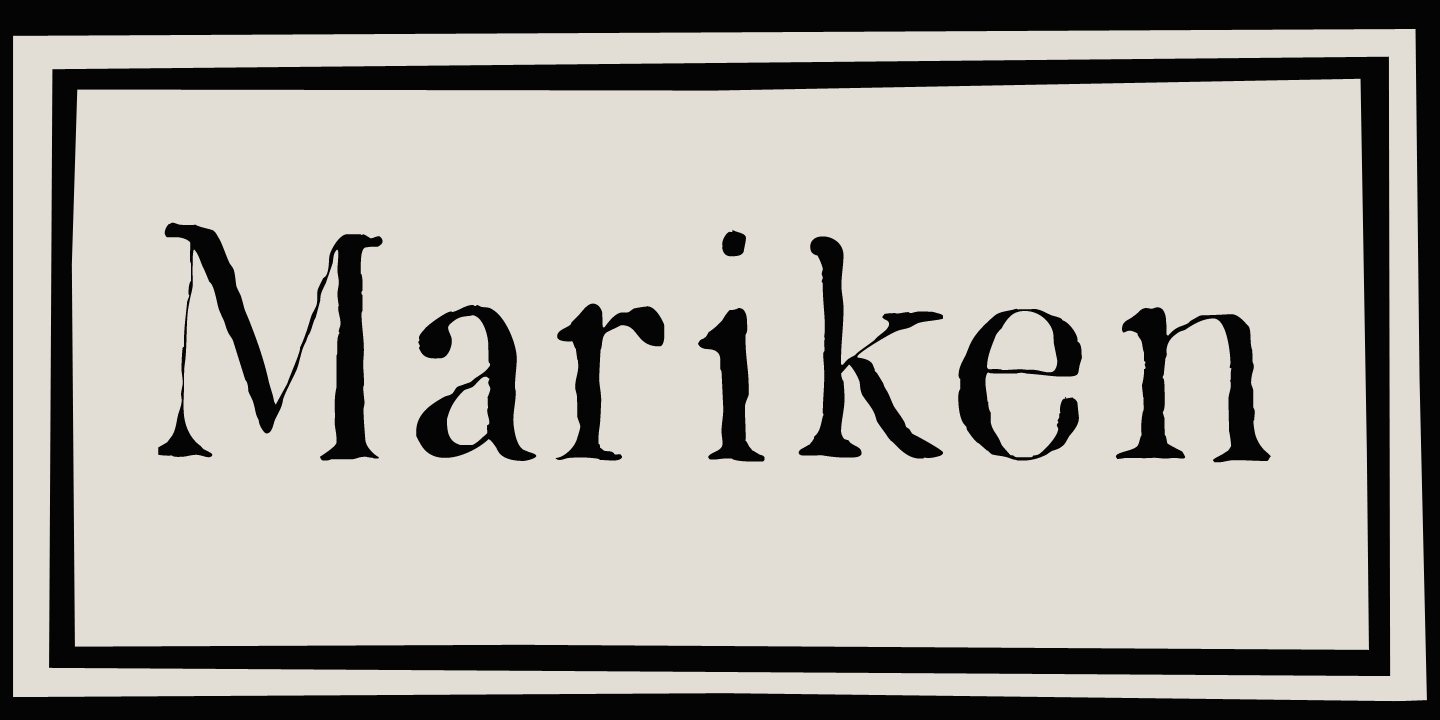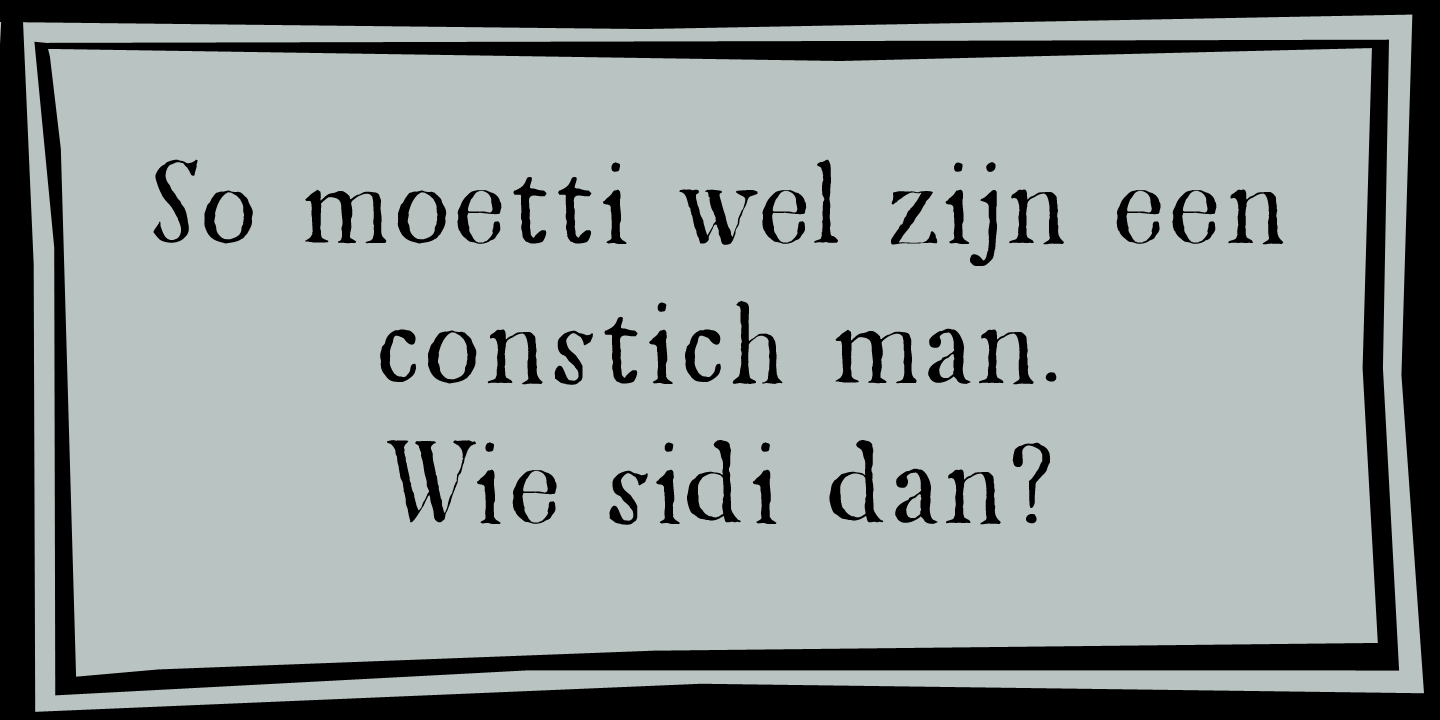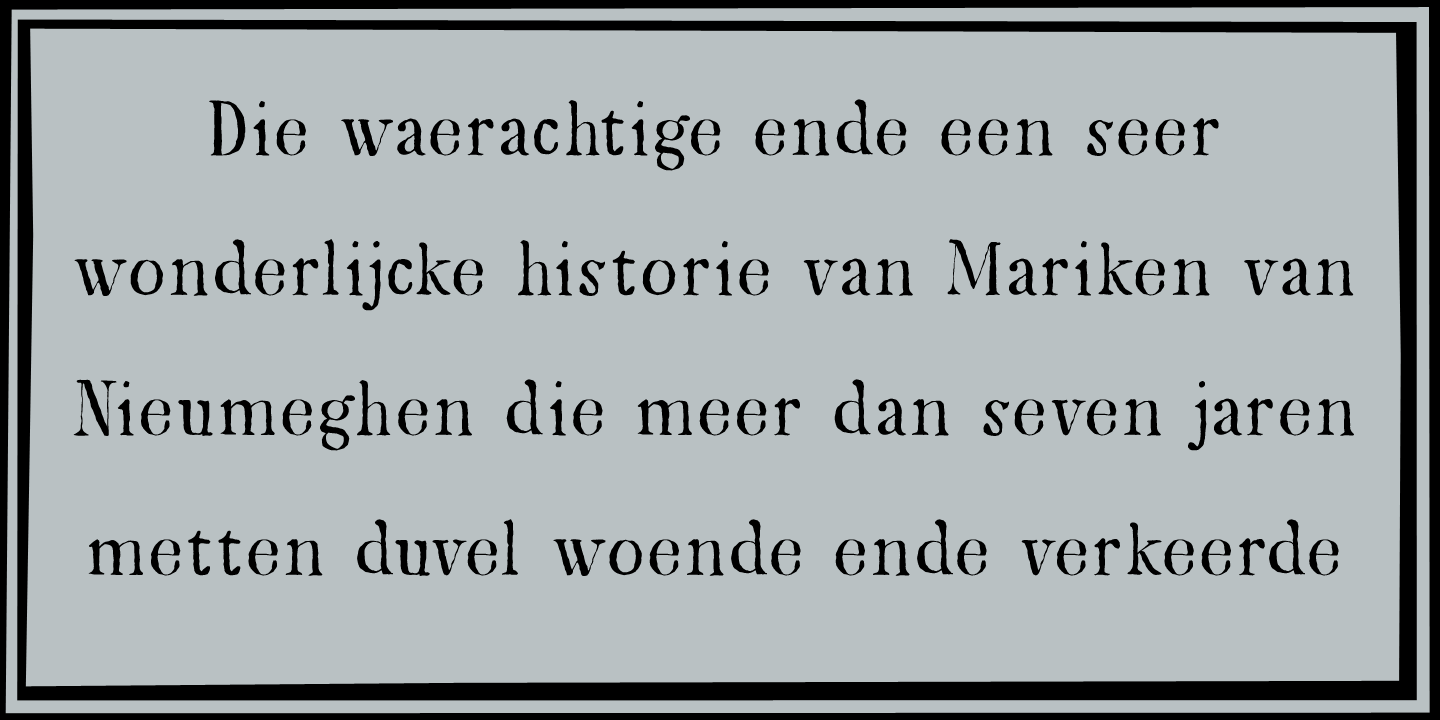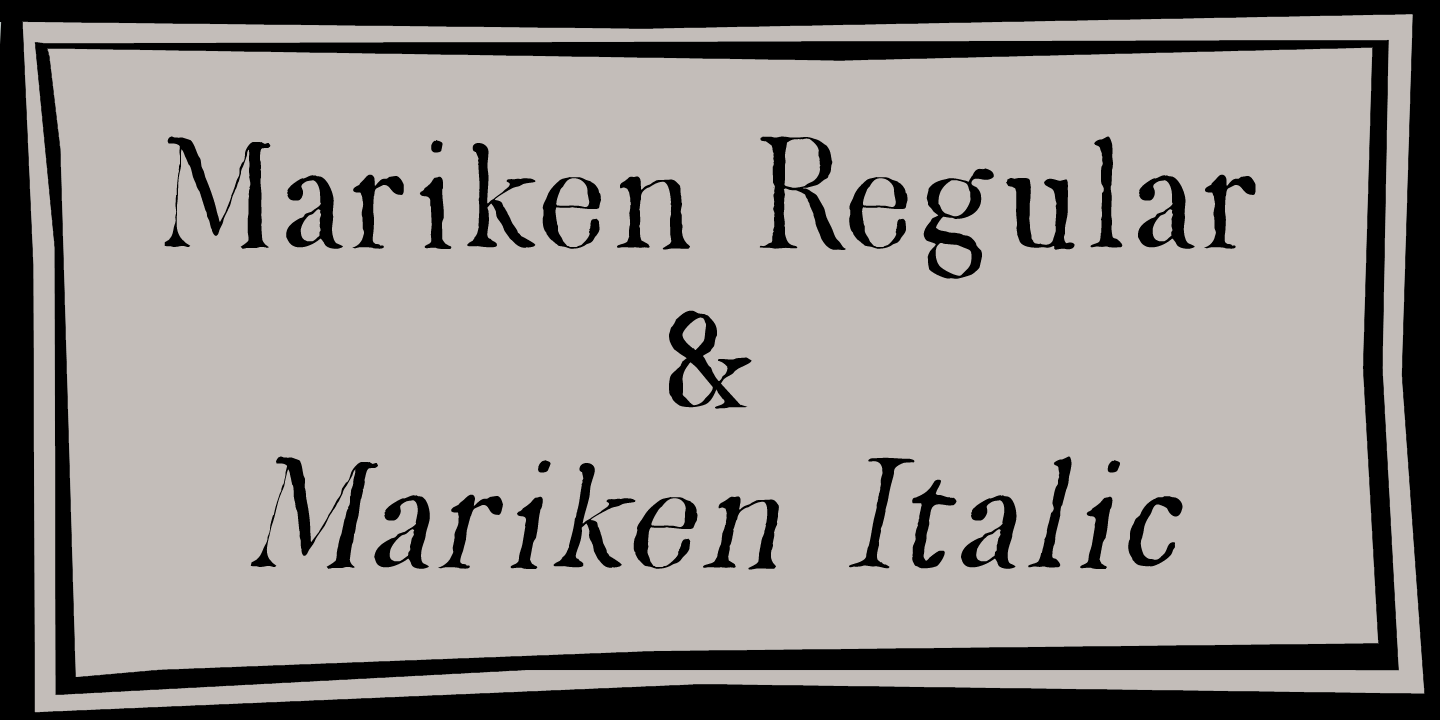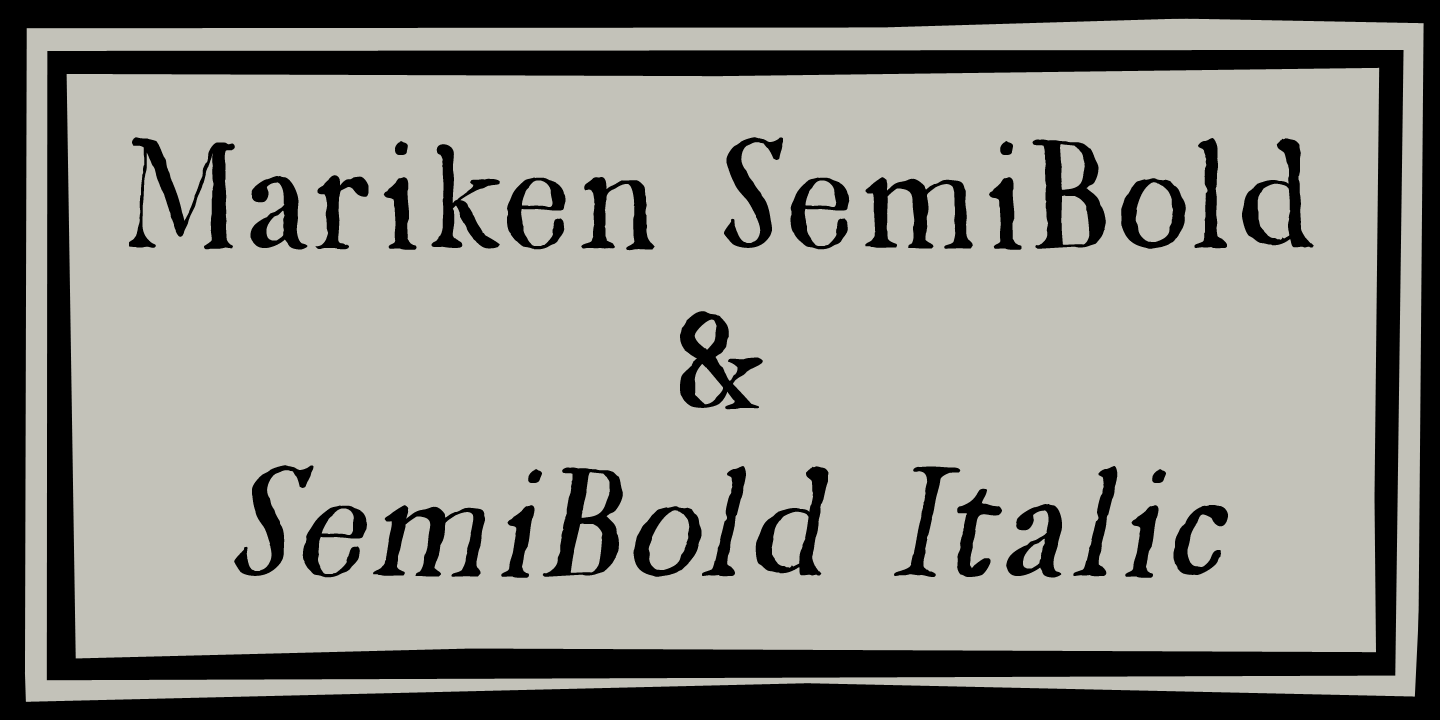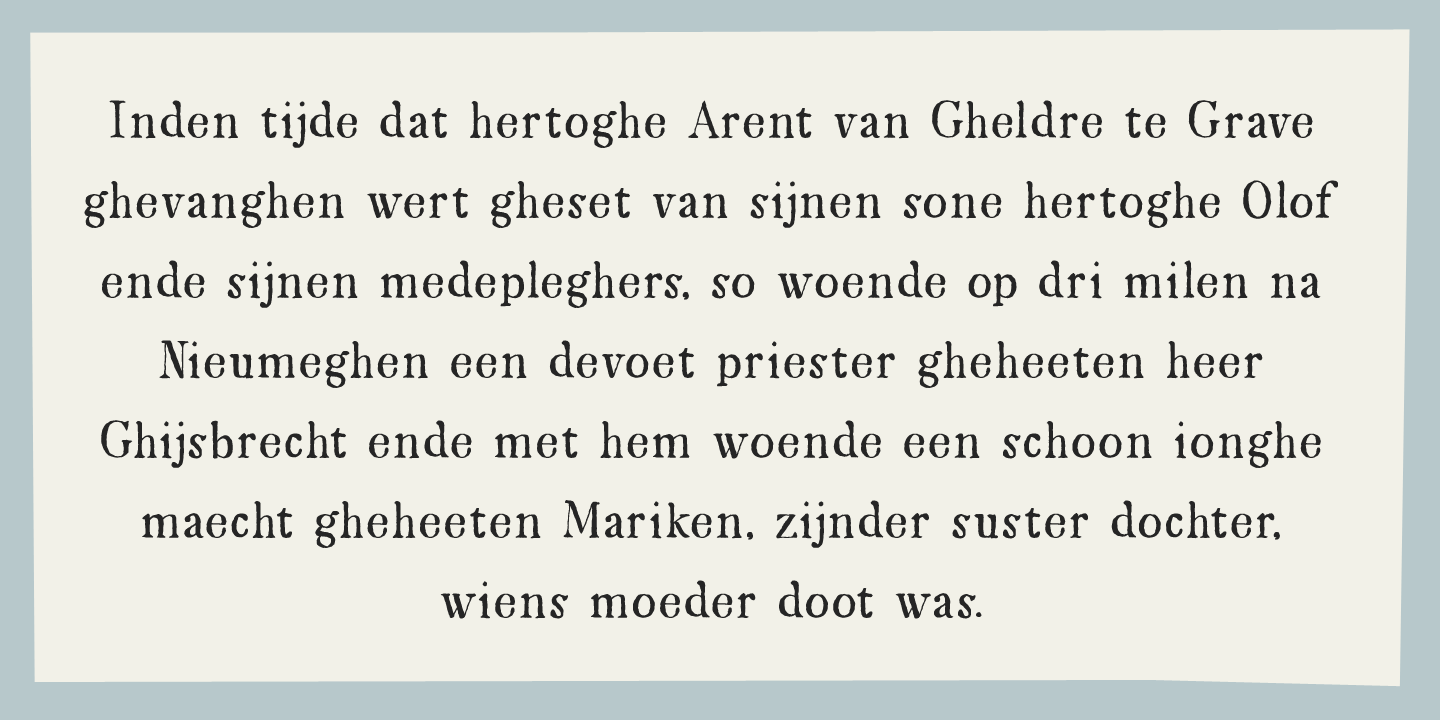
Mariken
Mariken van Nieumeghen is a late medieval Dutch text from the early 16th century. The protagonist of the play (a young maid called Mariken) spends seven years with the devil (called Moenen), after which she is miraculously released.
Mariken font is a handmade font, which was based on the works of Robert Granjon (1545-1588), a French type designer and printer and my recent Halewyn font. Use it for product packaging, books and posters. Comes in 3 weights (with italics) and a hellish amount of diacritics.